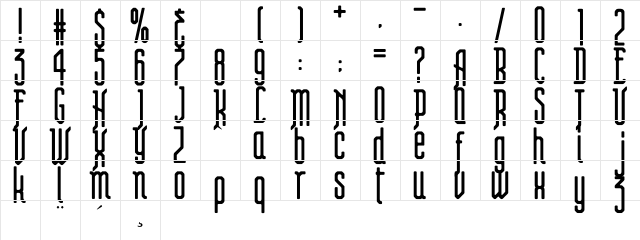
Steam Punk Flyer Regular
Design Context for Steam Punk Flyer Typeface
Steam Punk Flyer is a composed and adaptable typeface that performs quietly and consistently across a wide range of design contexts.
Pro Tip: Use Steam Punk Flyer in both headline and body roles to test its range before committing to a single application.